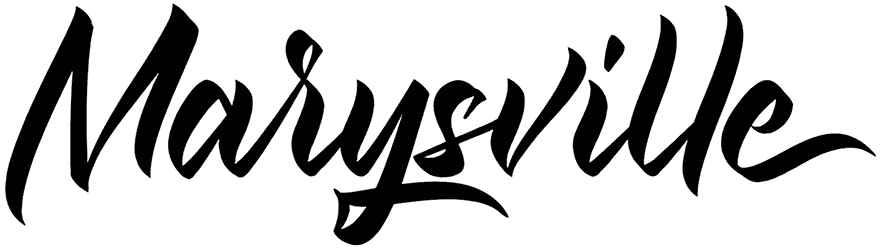
Marysville Font
Wanna get your audience in a warm aura or motivate them to retain designing as a positive practice, here a handwritten font called Marysville comes up to sustain you. Despite lacking numbers, it brings you satisfying effects, in any display; quotes, invitations, brands, and more.